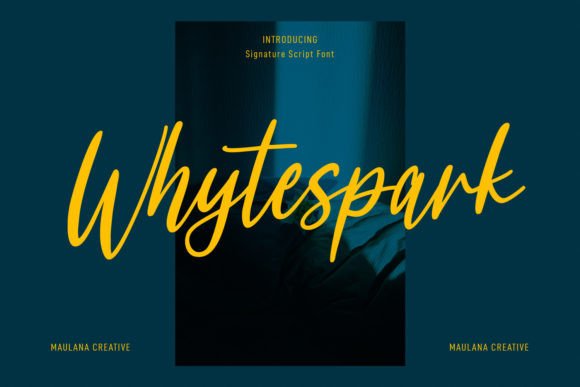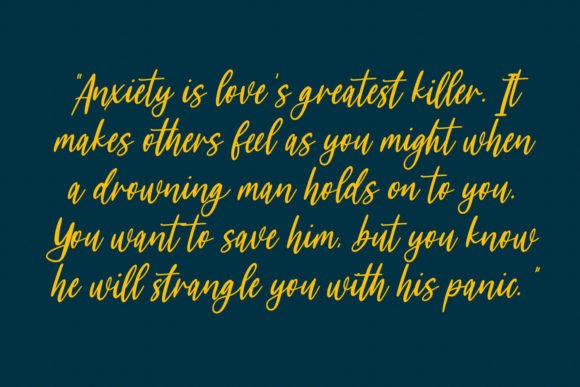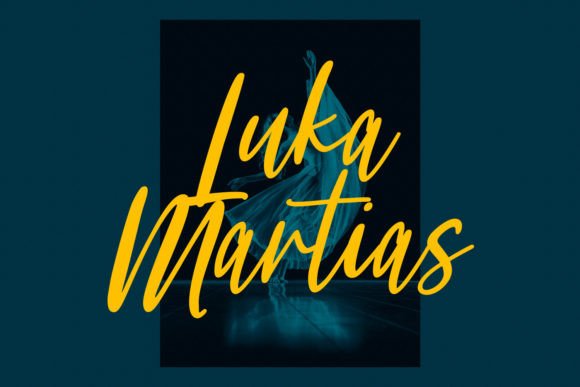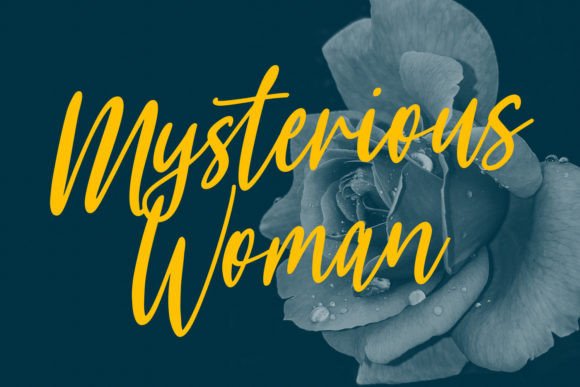
About Whytespark Font
Whytespark is a simple, joyful handwritten font. Its casual charm makes it appear wonderfully down-to-earth, readable, and, ultimately, incredibly versatile. This will look outstanding in any context, whether it’s being used on busy backgrounds or as a standalone headline!